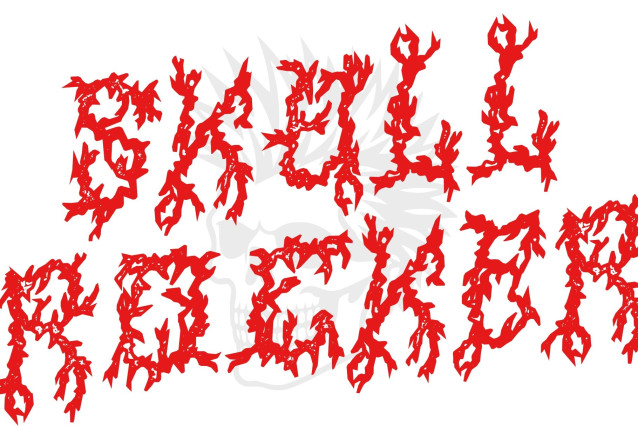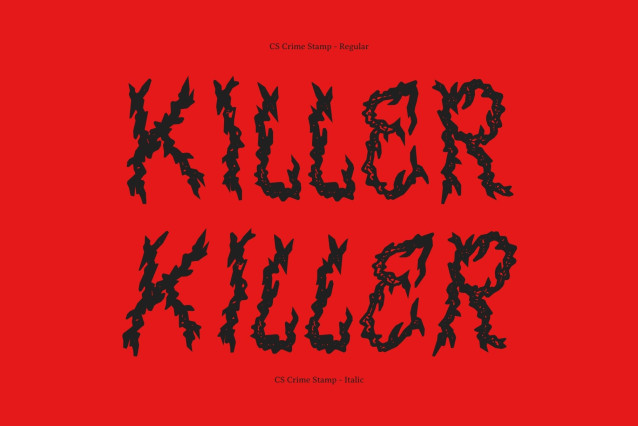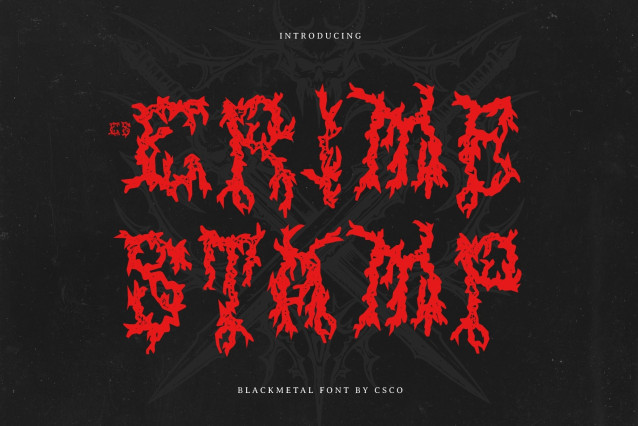
CS Crime Stamp Font
CS Crime Stamp – Black Metal Font: Where Gothic Meets Aggression
Display Font with Black Metal Aesthetic
This font is a bold and intricate display typeface crafted to capture the raw, gothic energy of black metal culture. Its letterforms are filled with sharp, thorn-like details and jagged patterns, creating a dark and rebellious visual identity that immediately commands attention.
Intricate Design for Maximum Impact
Every character is designed to feel intense and dramatic. The aggressive strokes and chaotic decorative elements evoke thorny textures and fractured shapes, giving the font a powerful sense of tension and movement. The stamp effect enhances this look with a distressed, vintage texture that adds depth and raw authenticity.
Deliberately Low Readability for Mystery
This font embraces complexity and reduced readability to heighten its cryptic and mysterious atmosphere. The layered details and unconventional forms draw viewers in, encouraging curiosity while reinforcing the font’s dark and enigmatic character.